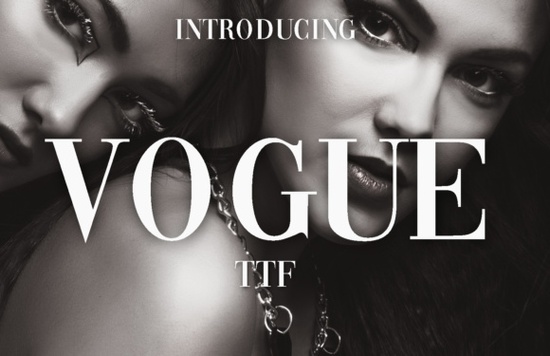
The Vogue Font is a stylish serif typeface inspired by the iconic logo of one of the world's most recognized fashion magazines. If you're working on a design project that needs a touch of elegance and sophistication, this font delivers exactly that. It's a popular pick among designers who want clean, high-end lettering without spending hours customizing every character. You can find it on Vogue Font through Creative Fabrica's font library.
Whether you're building a brand identity, designing a magazine cover, or creating social media graphics, a well-chosen typeface can make or break the final look. Let's take a closer look at what makes this font worth considering for your next project.
What Makes the Vogue Font Stand Out?
The first thing you'll notice about this typeface is its clean, tall letterforms with high contrast between thick and thin strokes. That combination gives it a polished, editorial feel the kind you'd expect on a luxury brand's storefront or a fashion lookbook.
Here are some of the design traits that make it unique:
- High-contrast serif structure that reads well at large sizes
- Elegant proportions inspired by classic editorial design
- Uppercase-focused style that works beautifully for headlines and titles
- Clean geometry that pairs well with both serif and sans-serif fonts
It's worth noting that this font leans heavily into a fashion-forward aesthetic. That doesn't mean it's limited to fashion projects, but it naturally fits that world. If you're looking for something with a similar editorial vibe but slightly different proportions, the fashionable serif font collection on the site offers more options in that direction.
What Can You Use It For?
This is one of those typefaces that works across a surprisingly wide range of projects. Based on how designers typically use it, here are the most common applications:
- Logos and wordmarks especially for beauty, fashion, and lifestyle brands
- Magazine covers and editorial layouts where a sophisticated headline typeface is essential
- Posters and event flyers gallery openings, runway shows, product launches
- Social media graphics Instagram quotes, Pinterest pins, and promotional banners
- Print-on-demand products t-shirts, tote bags, mugs, and greeting cards
- Website headers hero sections that need a bold, elegant statement
For print-on-demand sellers especially, a font like this can add real perceived value to your designs. A simple quote on a t-shirt looks entirely different set in a refined serif versus a basic sans-serif.
How Does It Compare to Similar Fonts?
If you're exploring serif options for your project, it helps to compare a few before committing. The Vogue serif font page gives you a closer look at the full character set, but here's a quick comparison with related options:
Choosing the right font really depends on the mood you're going for. If your project needs that high-fashion, editorial edge, the Vogue-inspired typeface is hard to beat. For something more grounded or classic, Zaslia might be a better fit.
Tips for Getting the Best Results
A few practical design tips to help you make the most of this typeface:
- Use it at larger sizes this font shines in headlines, not body copy
- Pair it with a simple sans-serif for contrast (think Montserrat or Lato)
- Add generous letter spacing for an even more luxurious look
- Stick to dark-on-light color schemes for the most readable results
- Avoid using it in all-caps for long text reserve that for short titles and taglines